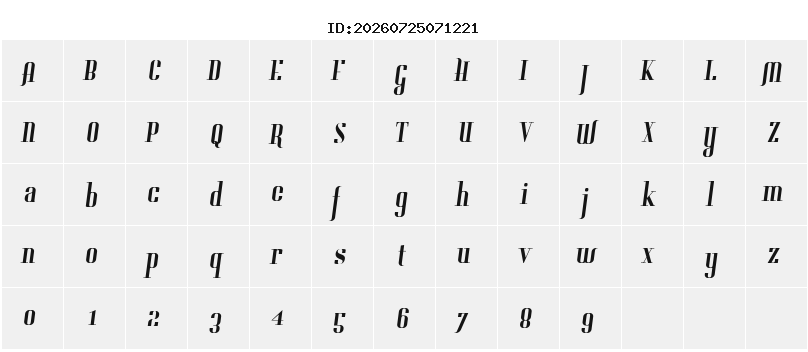
Gladifilthefte Preview
• Font Name: Gladifilthefte
• Full Font Name: Gladifilthefte
• Version: Version 1.00 August 20, 2009, initial release
• Designer: Tup Wanders
About Gladifilthefte.ttf
Gladifilthefte.ttf is a modern, elegant sans-serif font designed for ultimate readability and visual harmony. Perfect for branding, headlines, web design, and print materials.